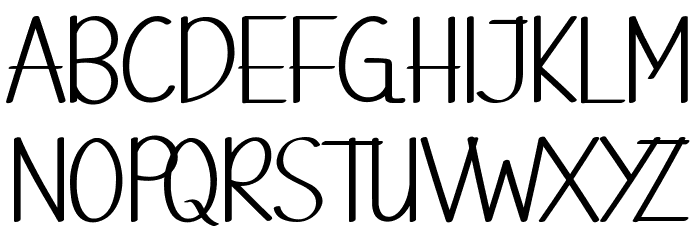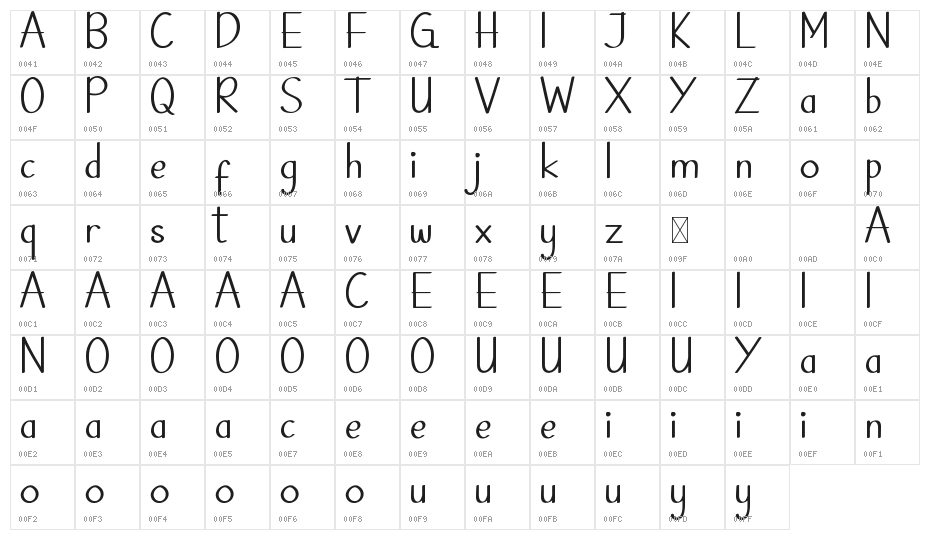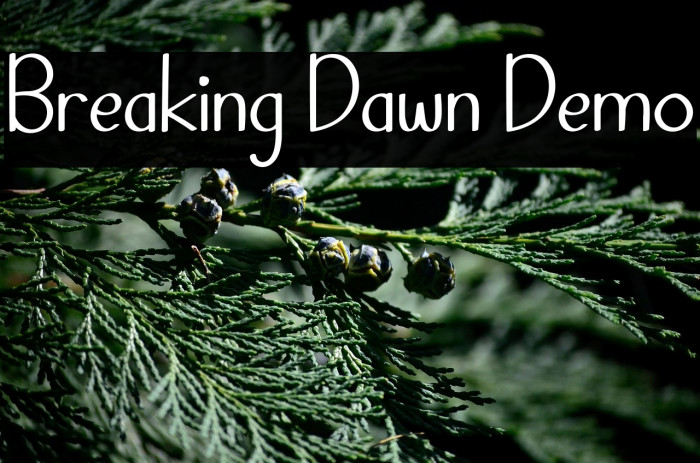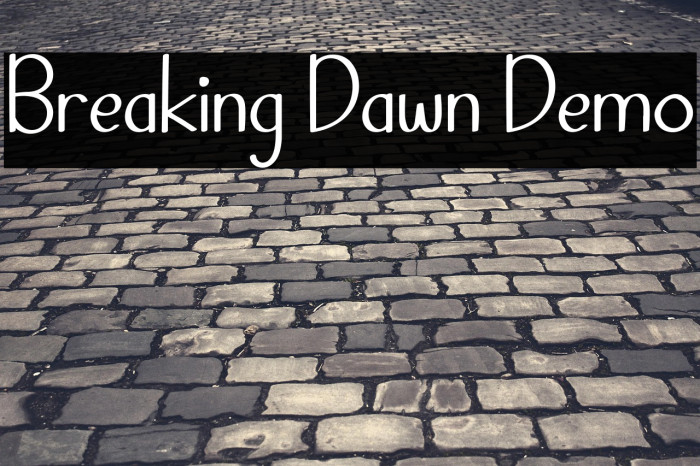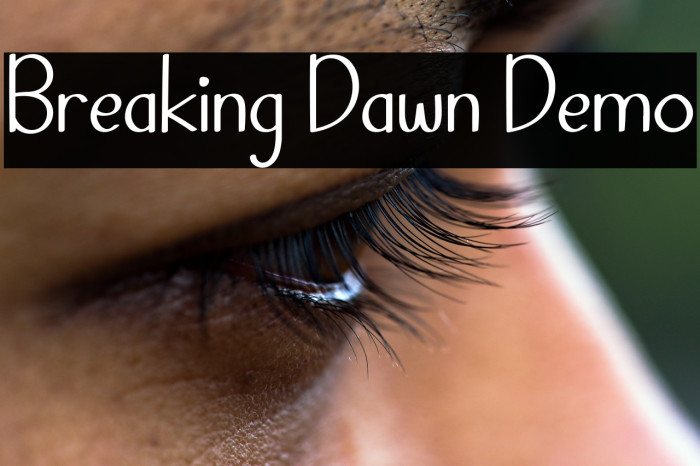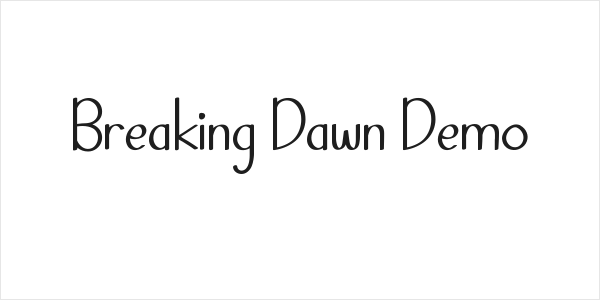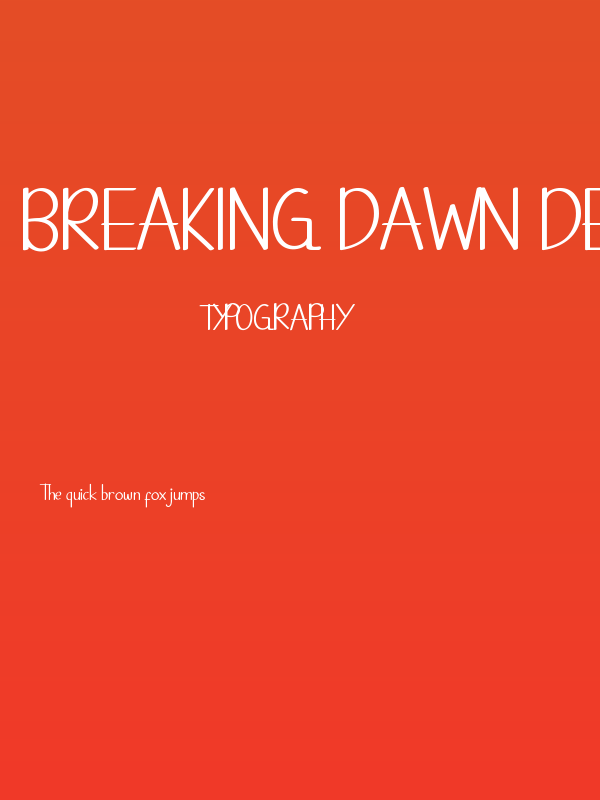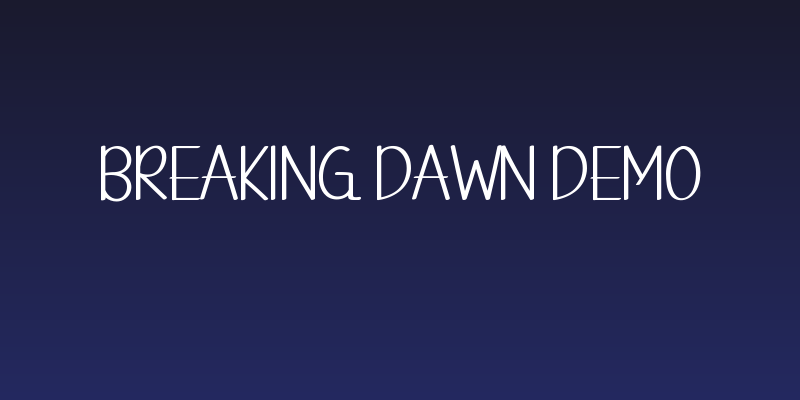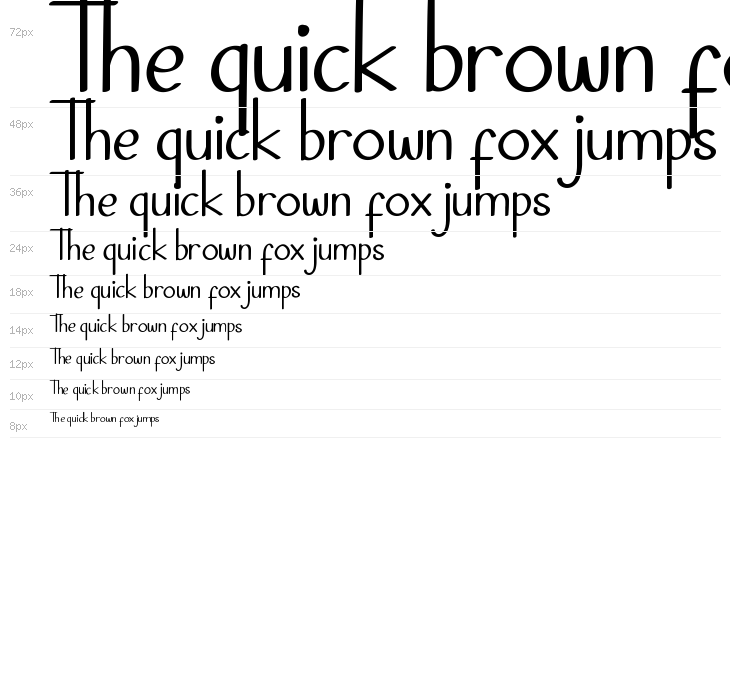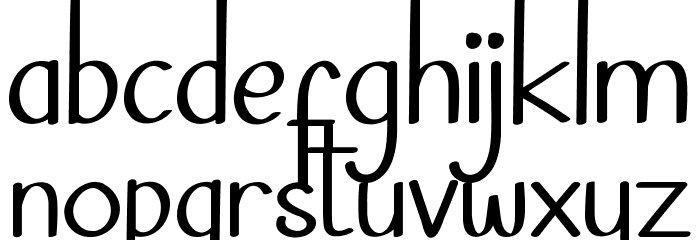
Breaking Dawn Demo Font
Breaking Dawn Demo Description
This font features a playful and whimsical design, characterized by its tall, narrow letterforms and subtle curves. The uppercase letters are uniform in height, with a slight slant that adds a dynamic feel. The lowercase letters maintain a consistent style, with rounded edges and a friendly appearance. The font includes a full set of uppercase and lowercase letters, numbers, and a selection of special characters. Its unique style makes it suitable for creative projects that require a touch of personality and charm. The overall design is clean and legible, making it versatile for various applications.